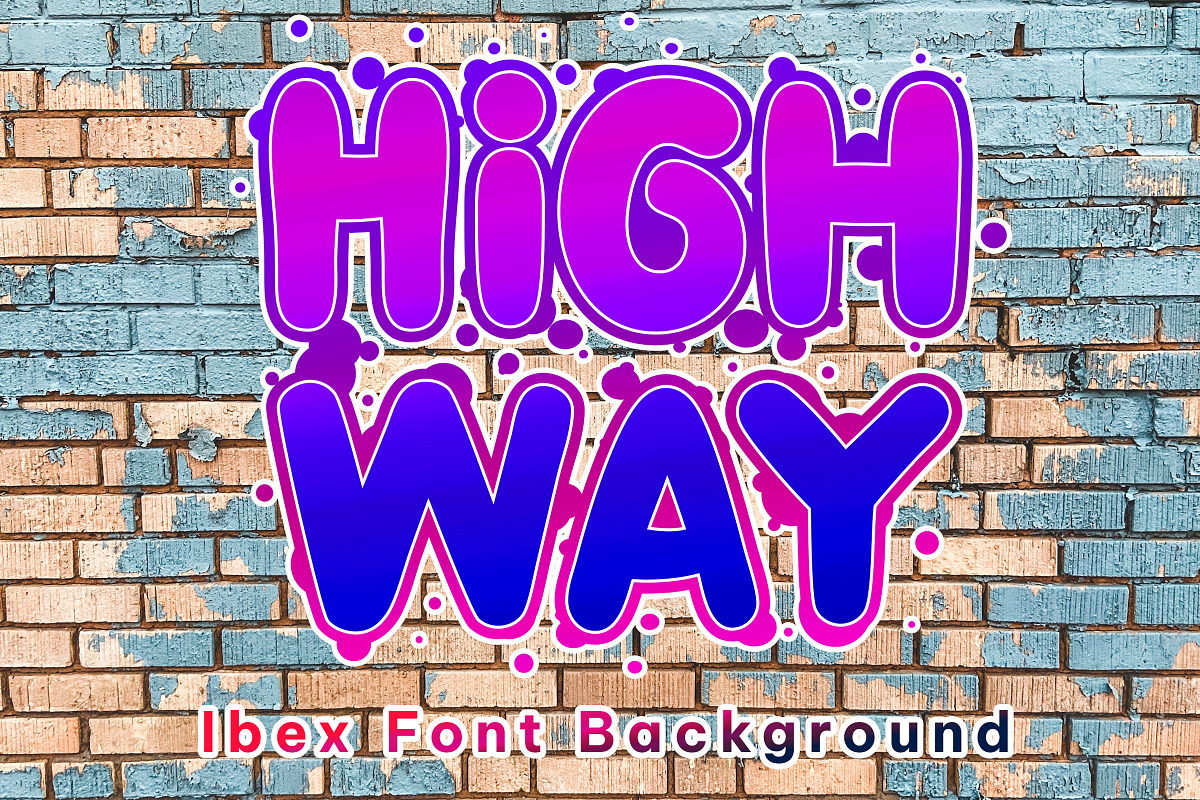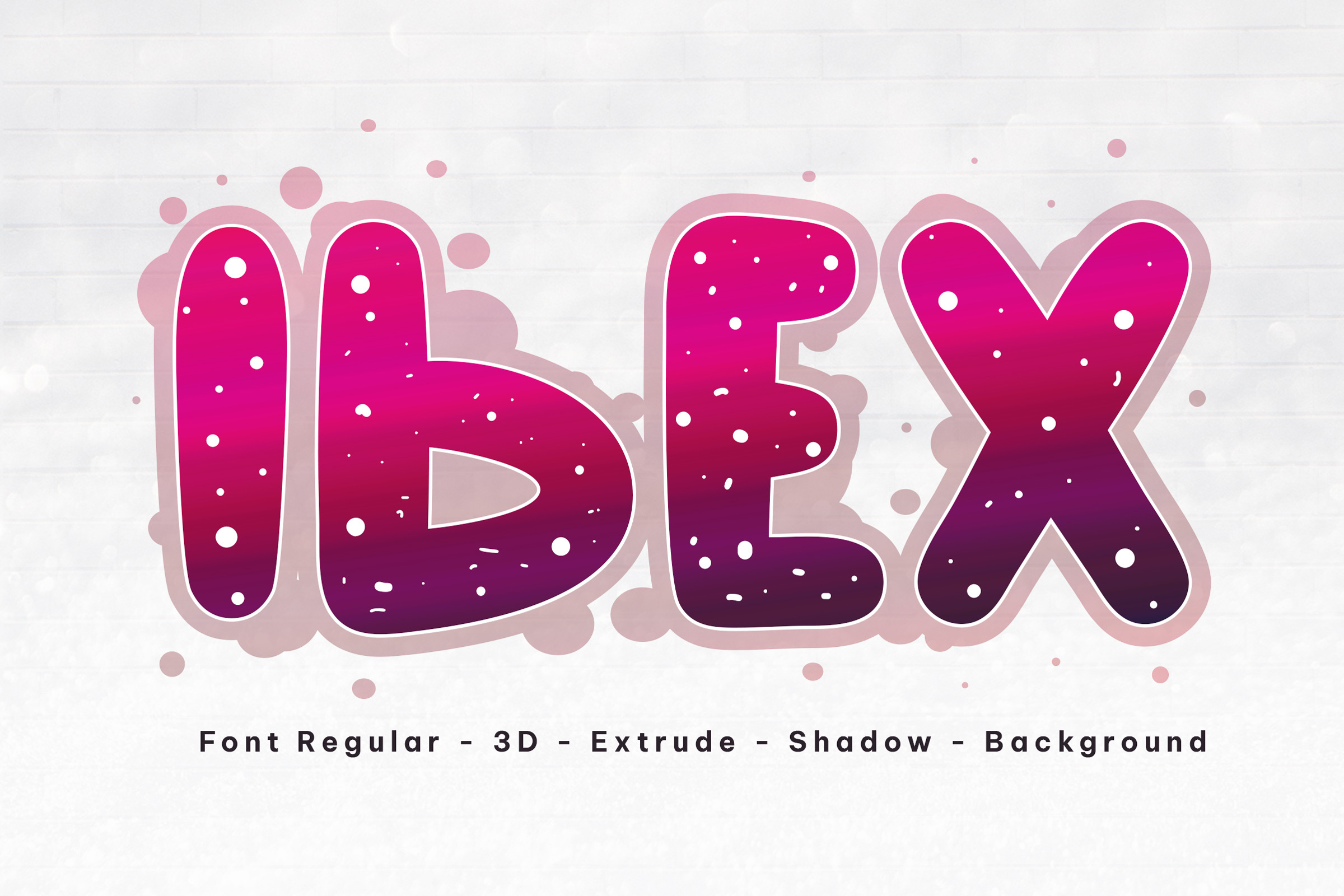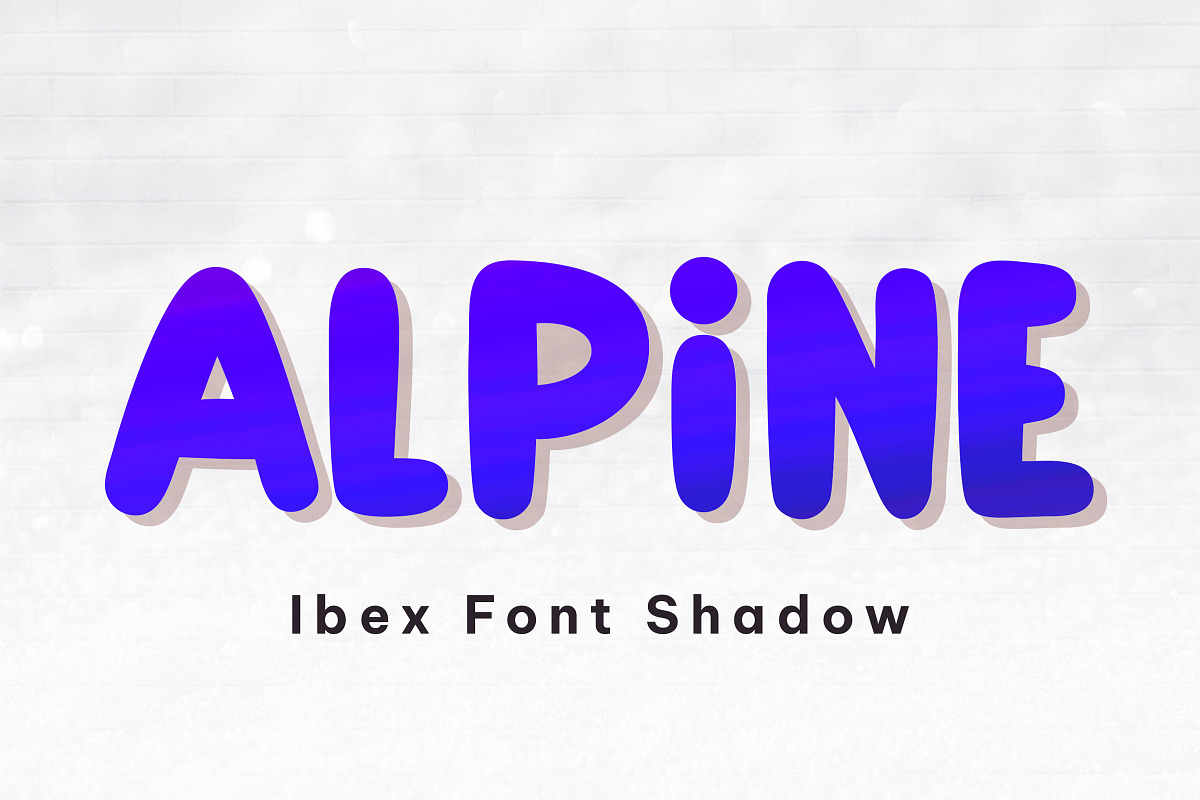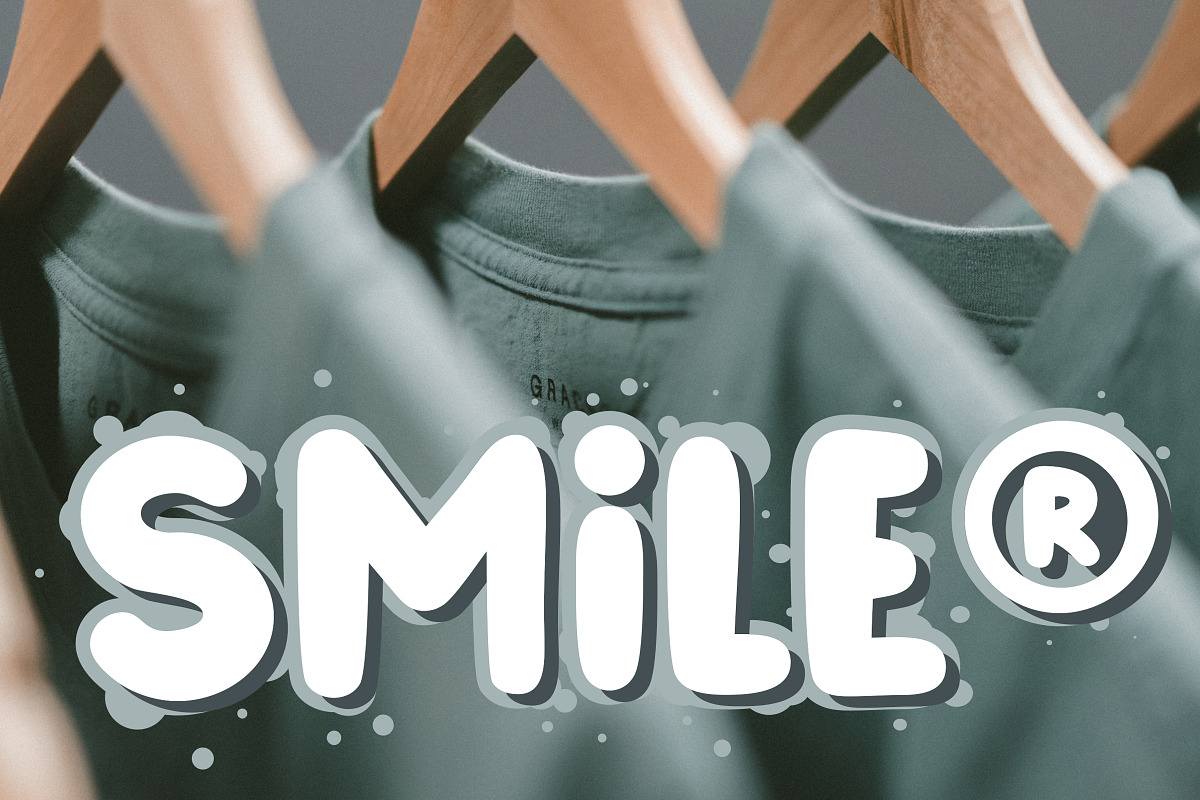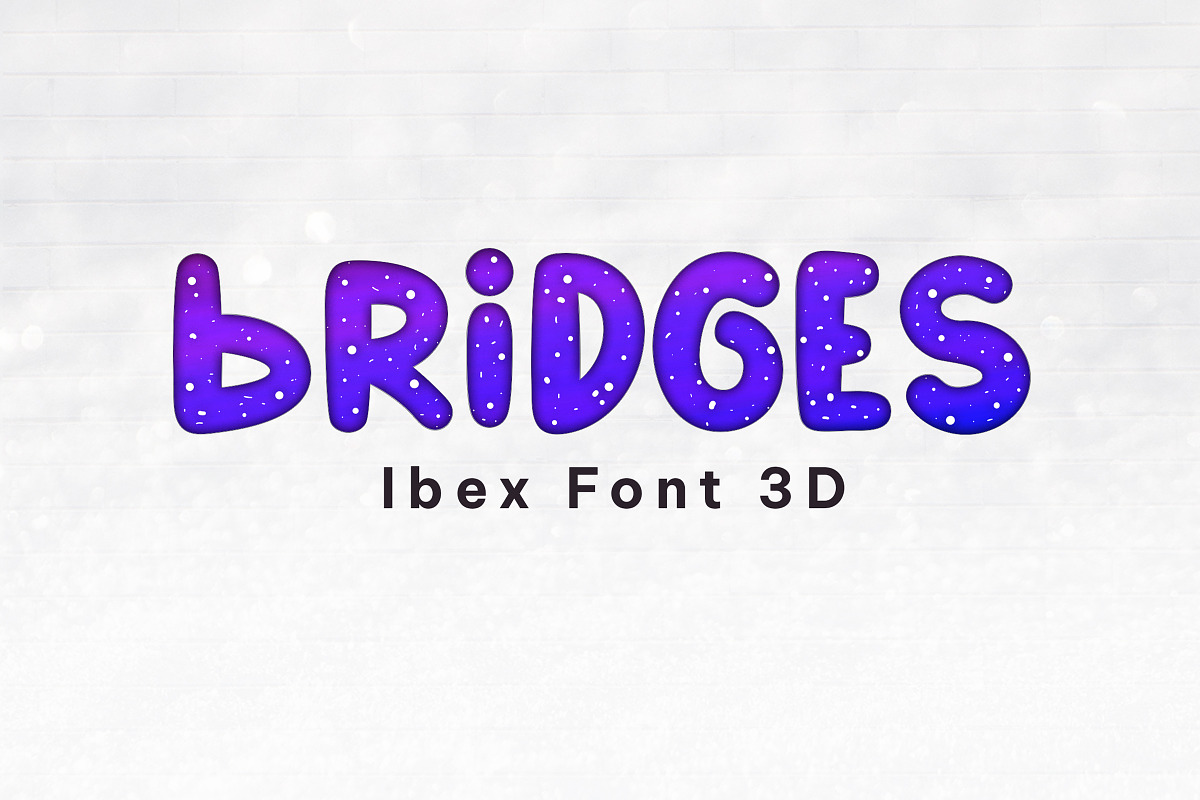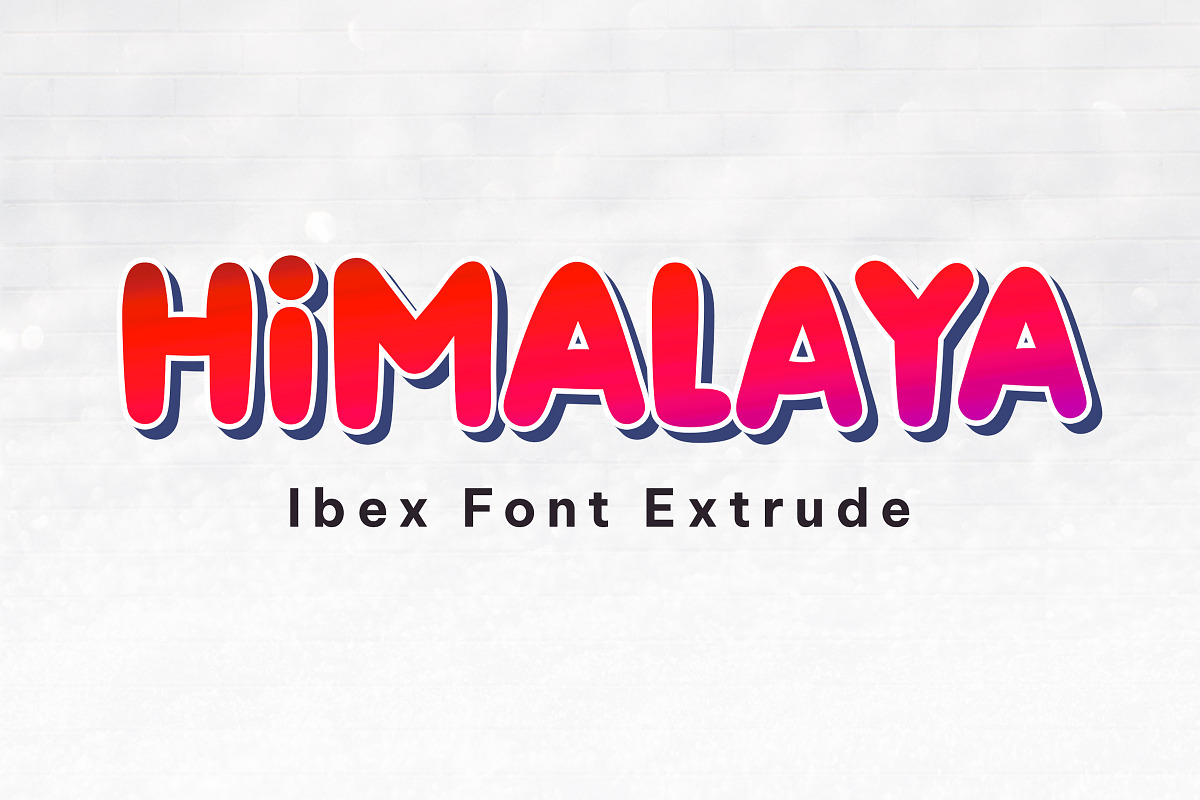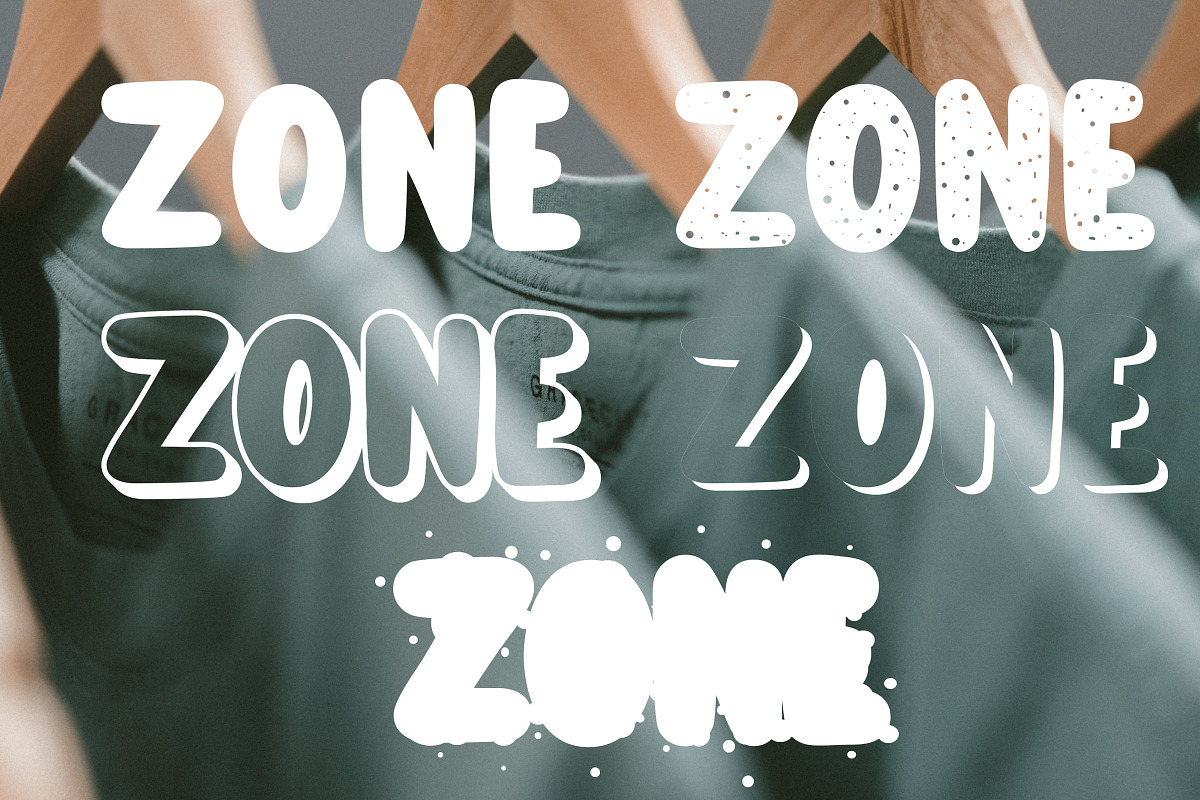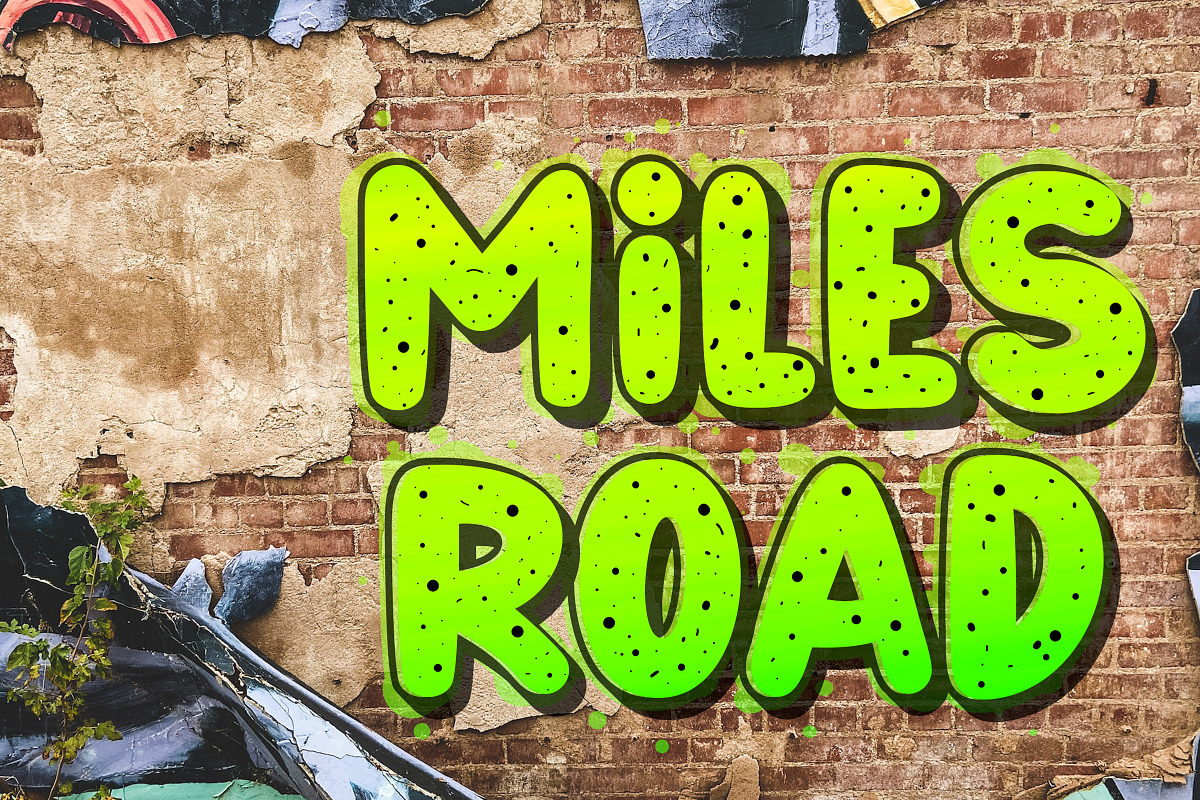
Ibex - Display Font
Ibex is a beautiful and cute display font. Its characters are perfect for wall displays, wedding invitations, social media posts, logos, advertisement, product packaging, product design, labels, photography, watermarks, invitations, stationery, and any project that requires modern typography.